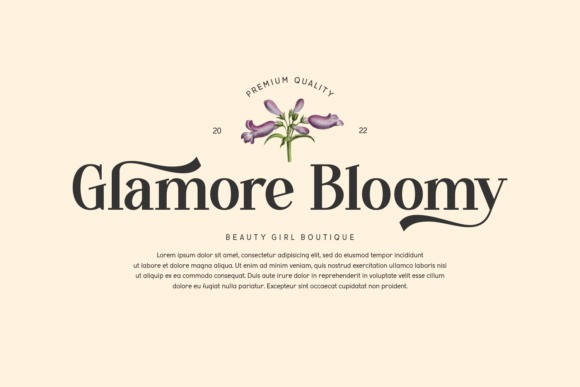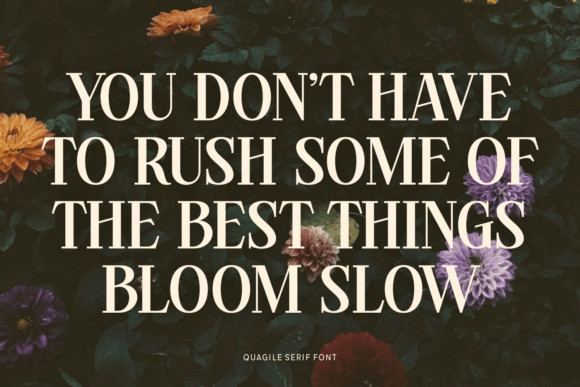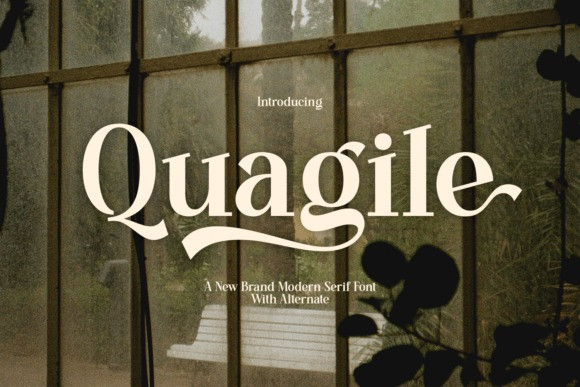
Quagile Font
Quagile Font, a new brand modern serif font. The hazy light and silhouettes of plants create a nostalgic and natural atmosphere that complements the font’s retro-chic character and its unique alternate letterforms.